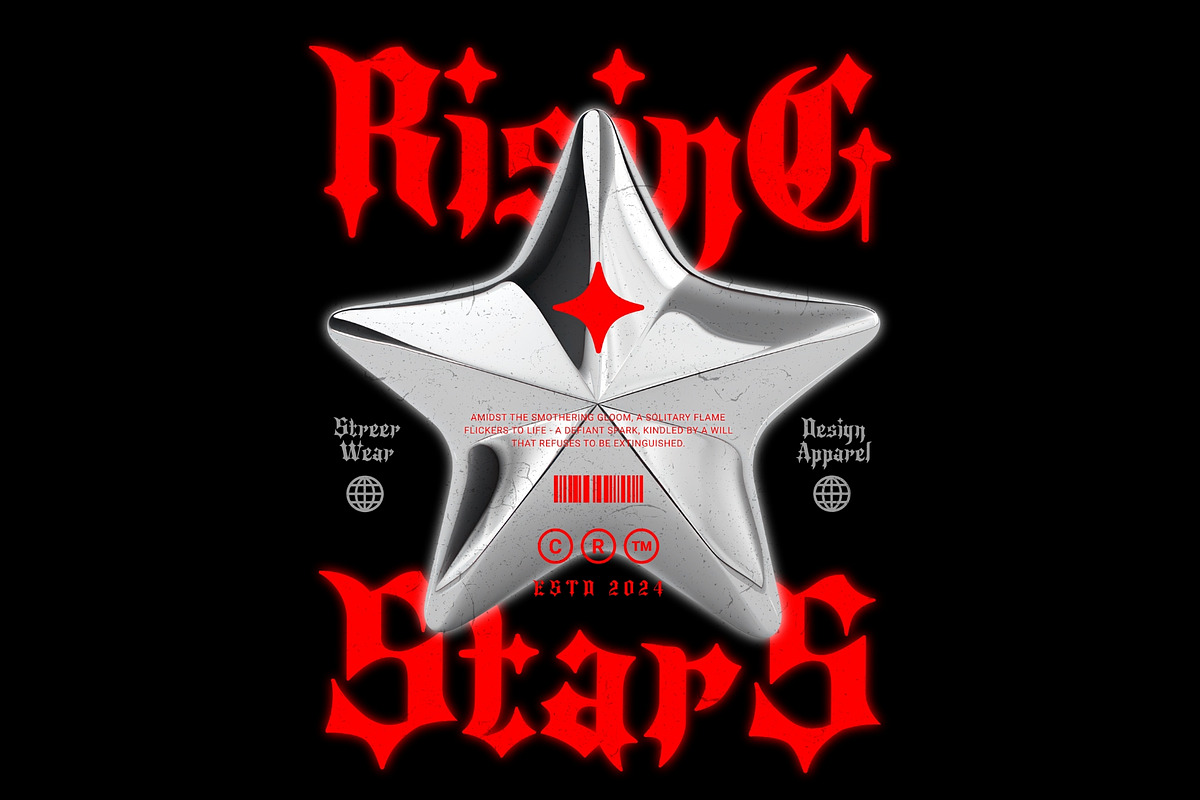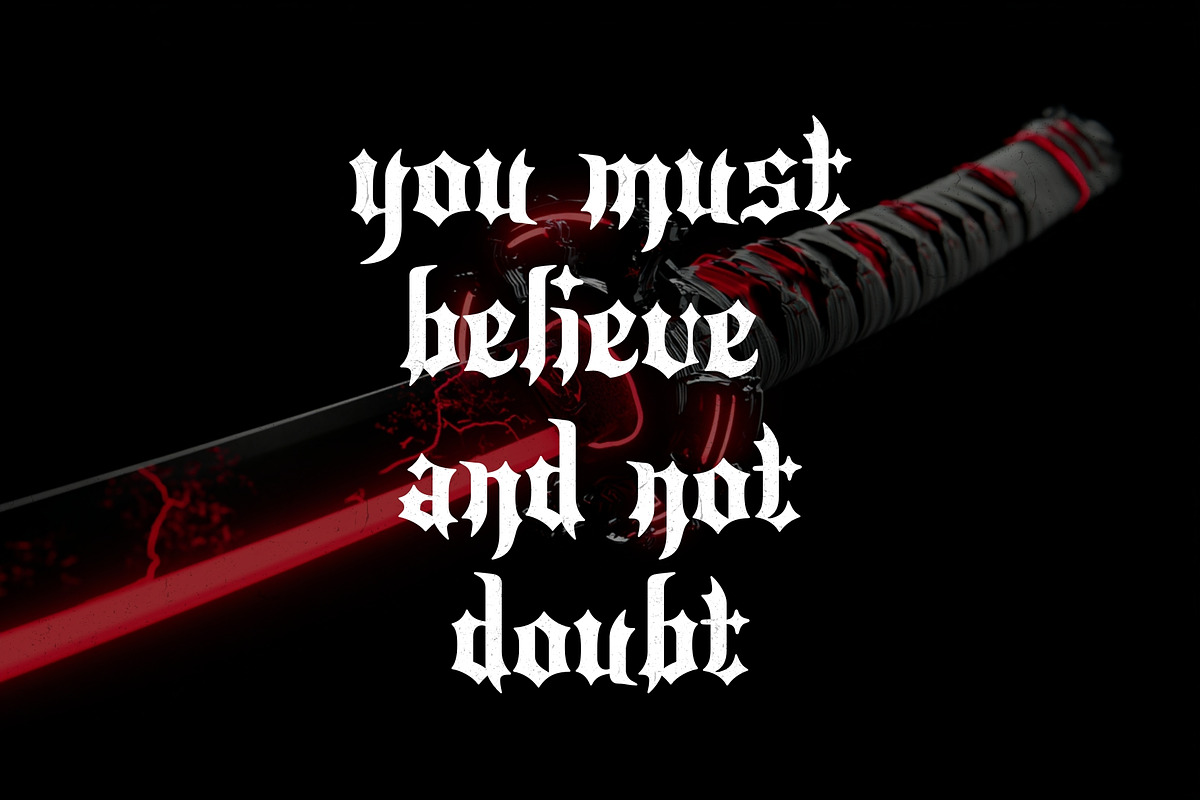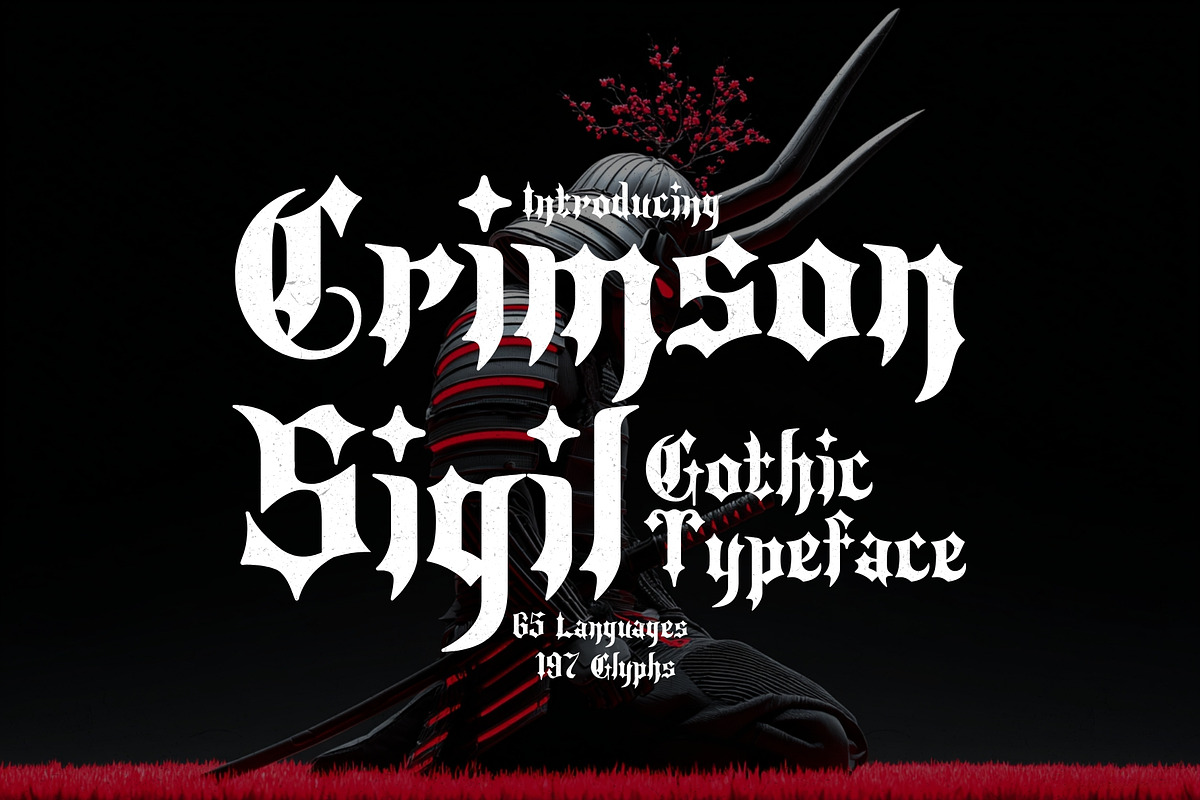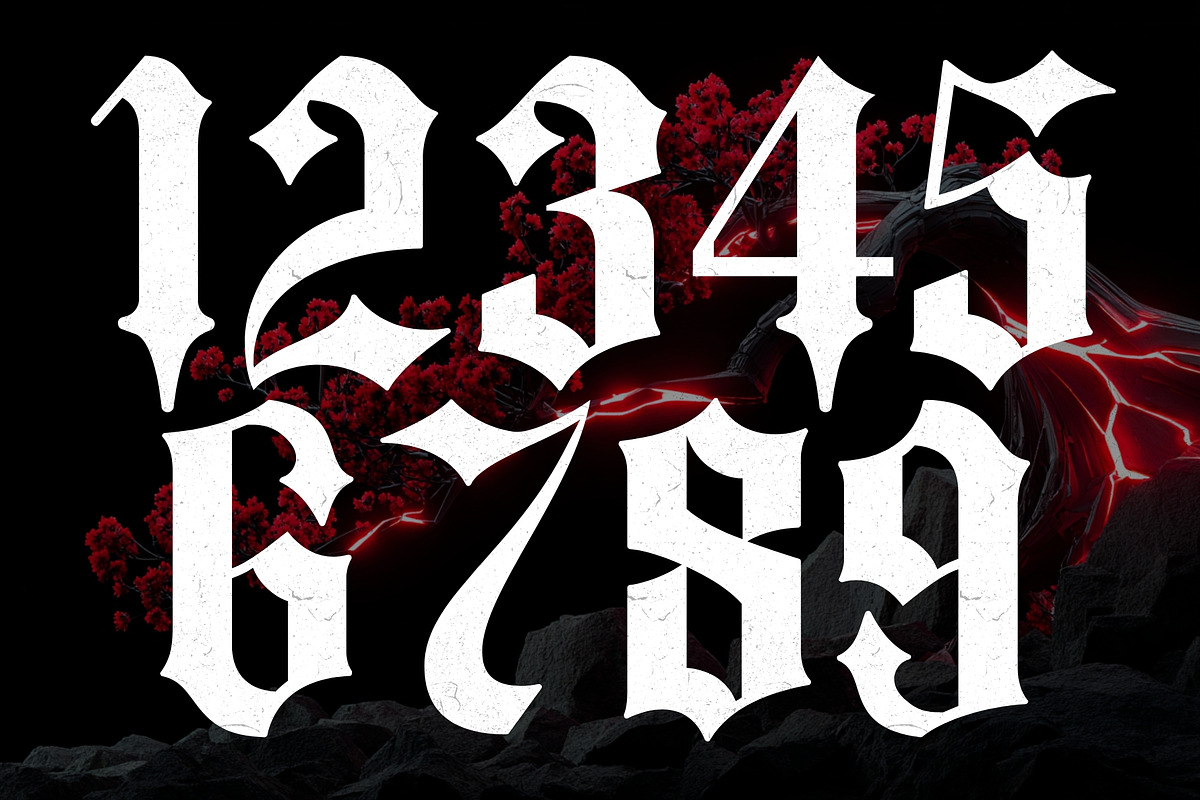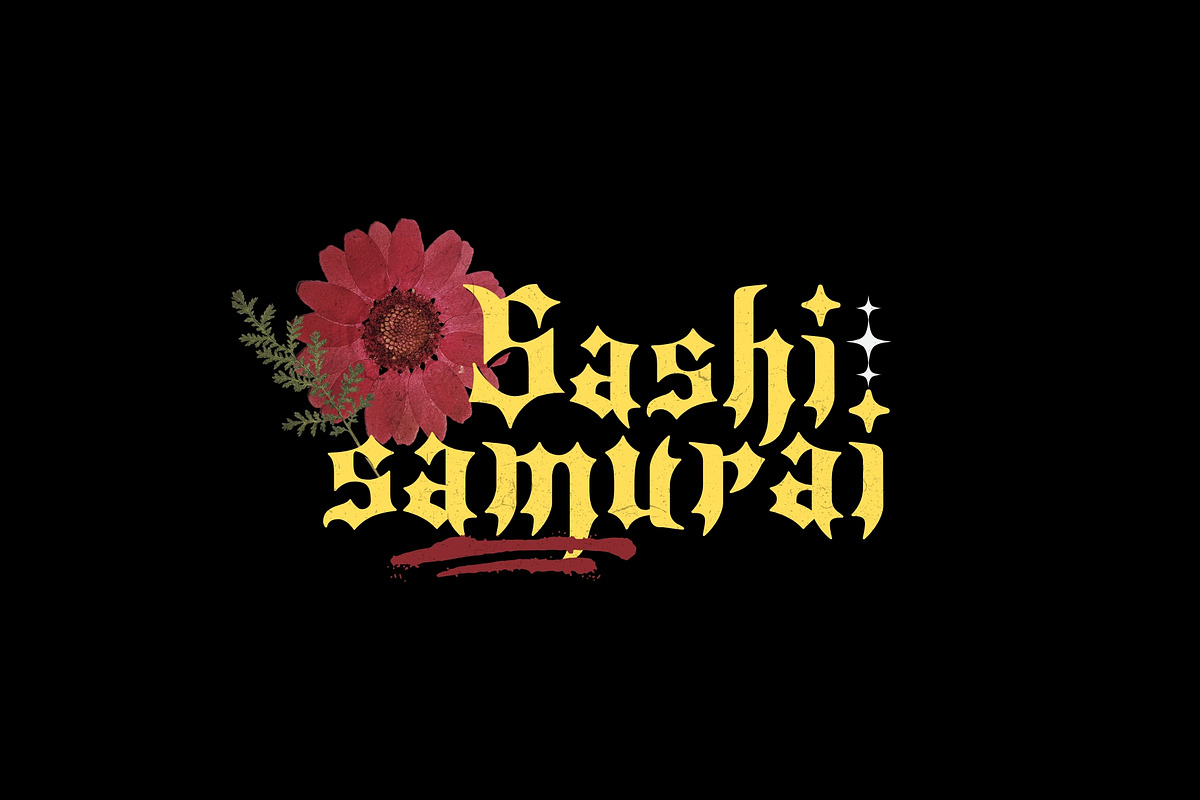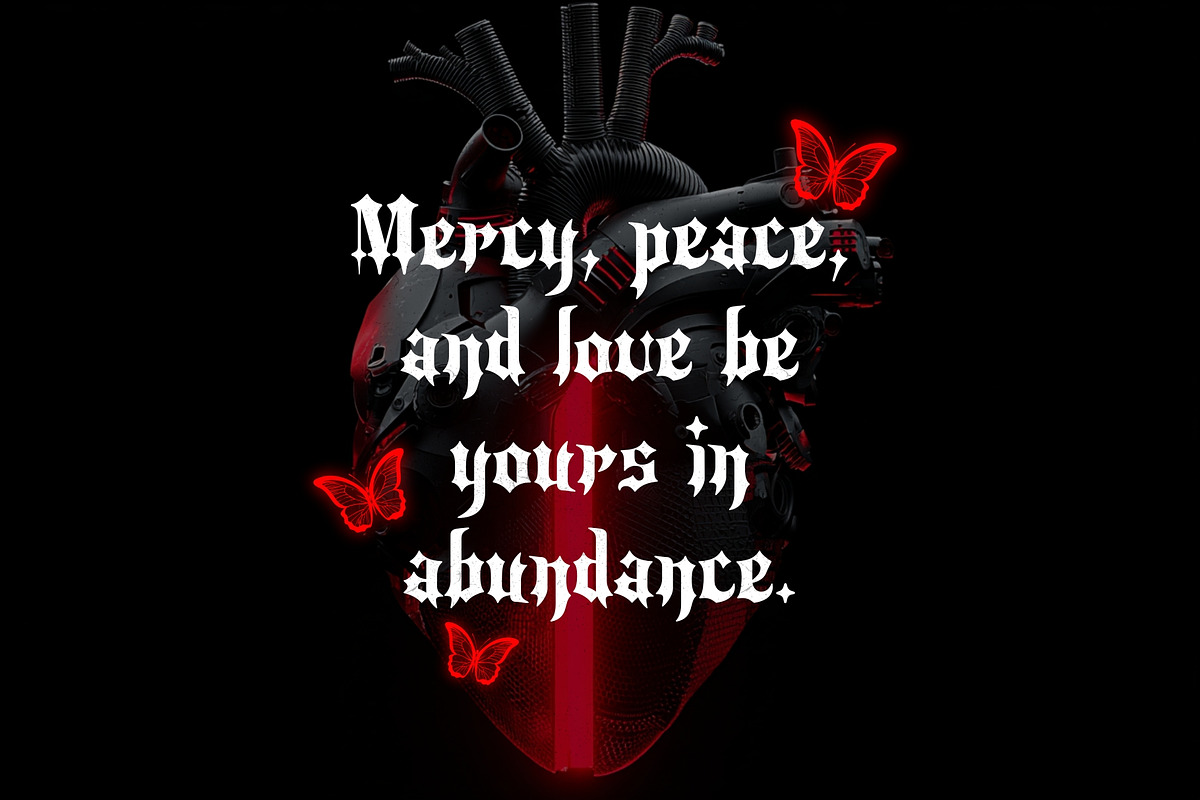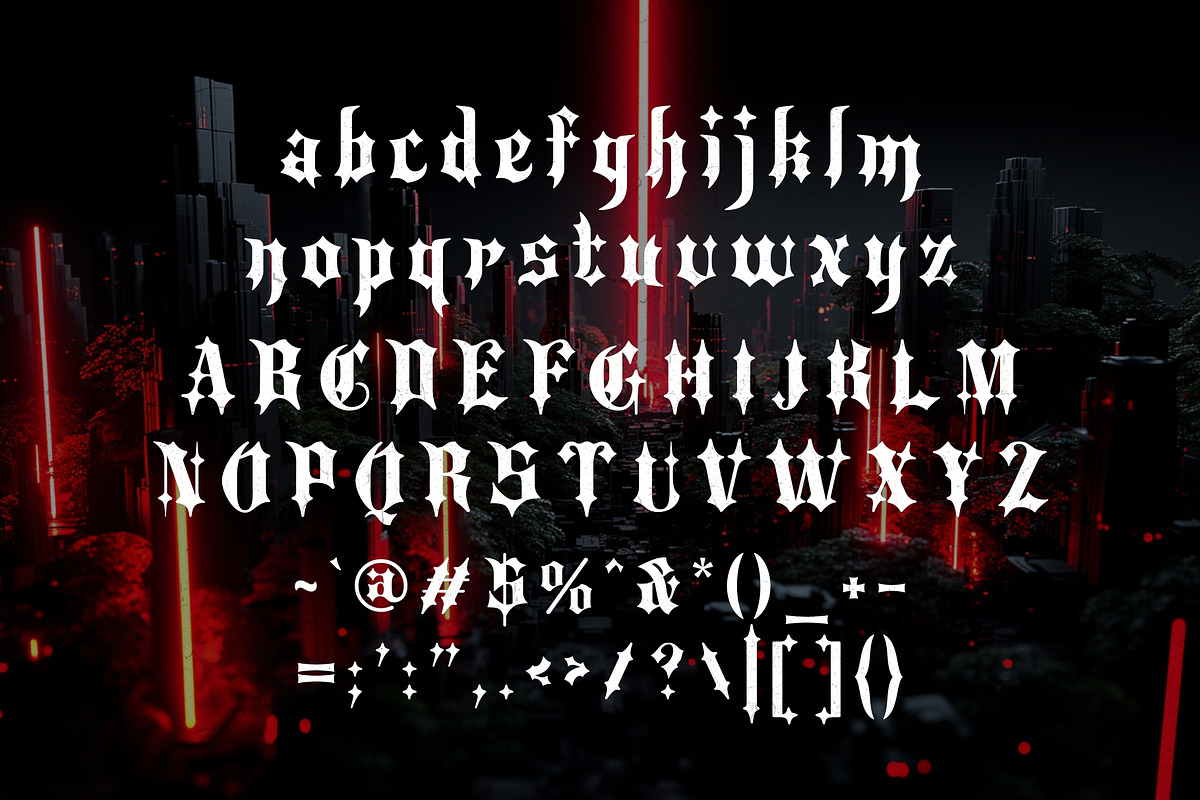
Crimson Sigil - Blackletter Type
Crimson Sigil is a gothic blackletter typeface forged in the fires of ancient mysticism and medieval power. With razor-sharp serifs, dark dramatic strokes, and an aura of unrelenting elegance, this font doesn’t whisper, it commands. Every letter drips with character and intensity, echoing sacred grimoires, enchanted manuscripts, and the grandeur of old-world calligraphy.
Whether you're designing album covers, fantasy novels, branding for dark artisan goods, or summoning the aesthetic of medieval times, Crimson Sigil delivers an unmistakable visual impact. Its striking letterforms are built to captivate, beautiful yet bold, ornamental yet legible, fierce yet refined.
Let your next project bleed with brilliance.